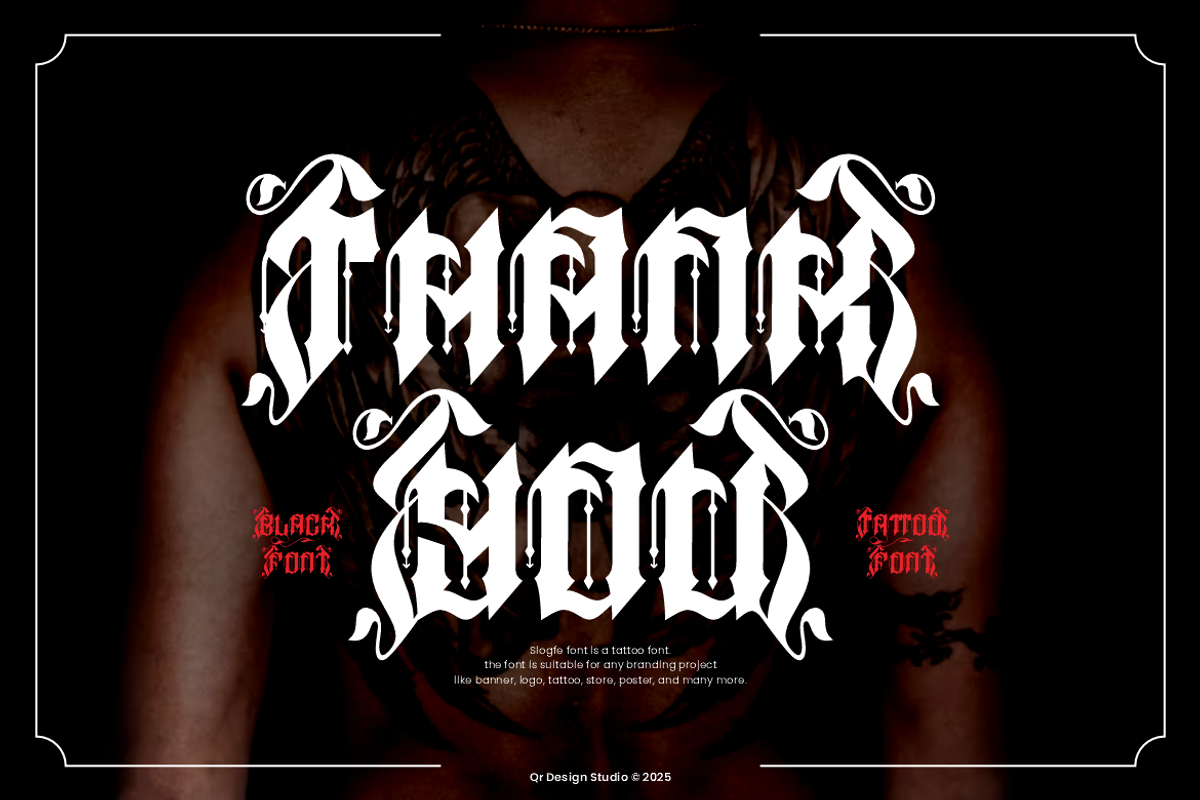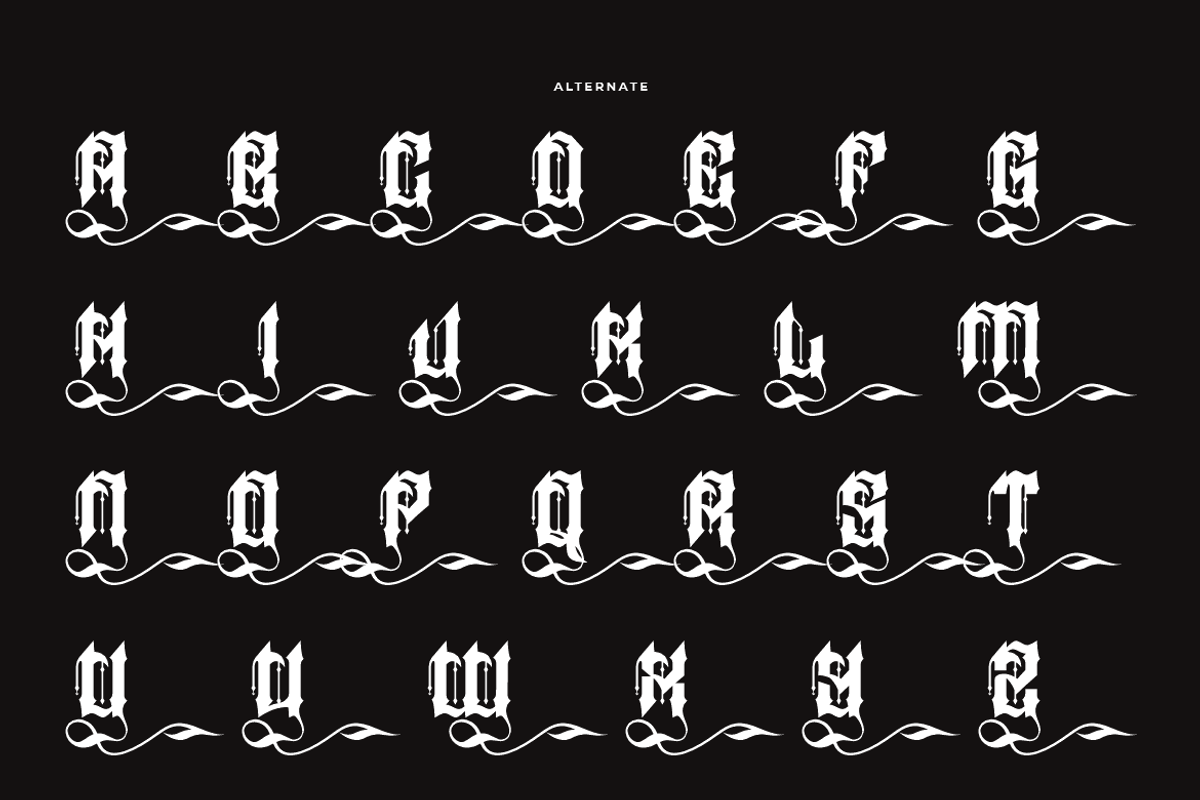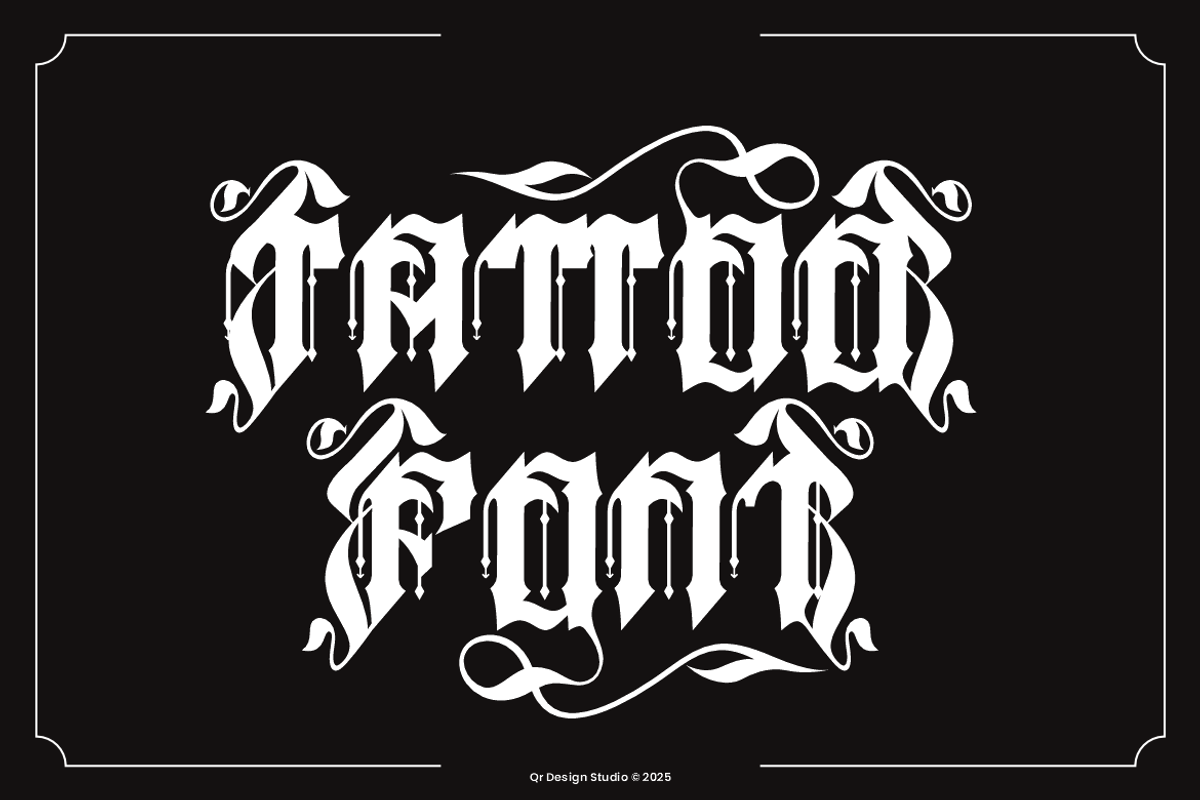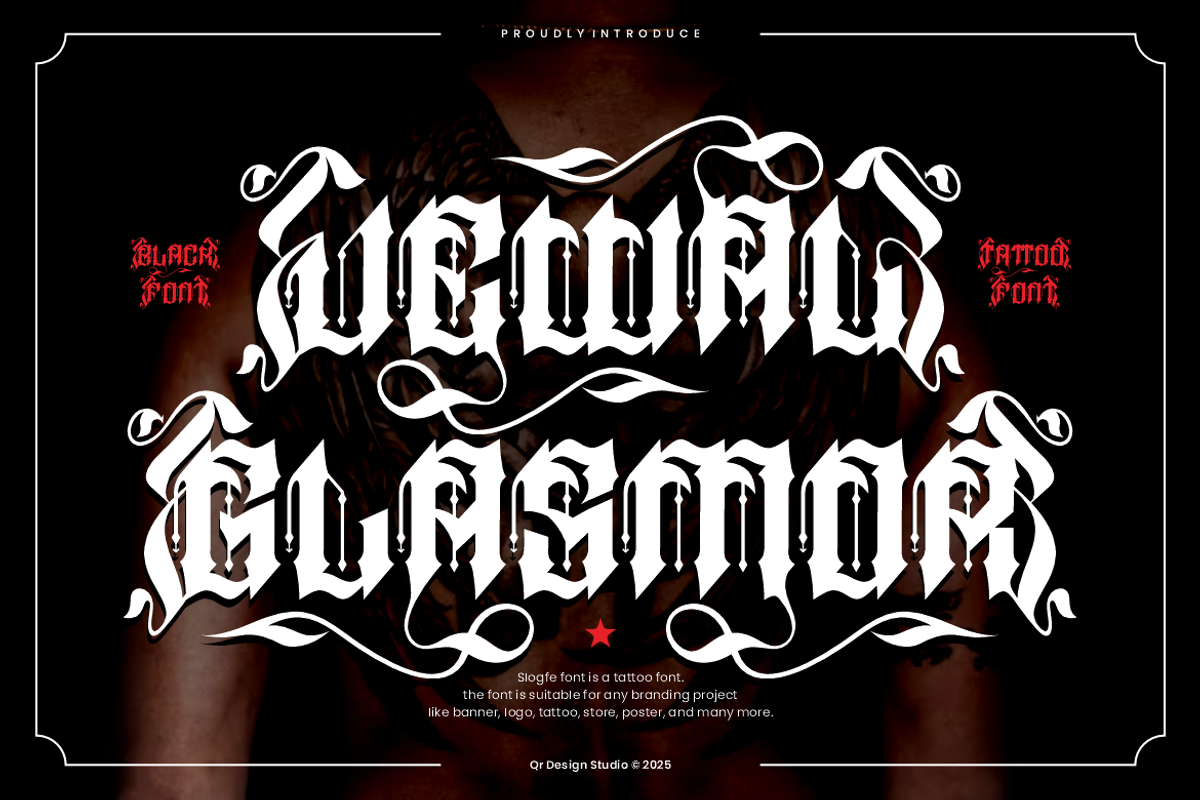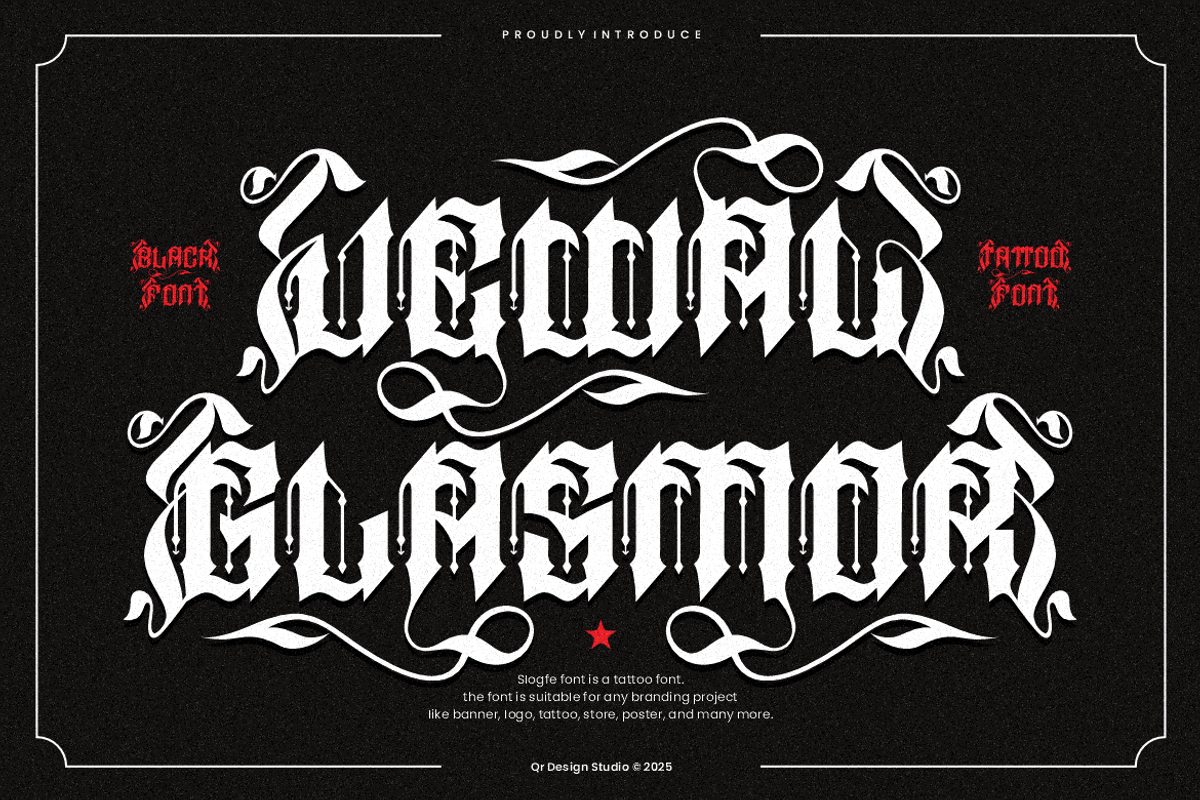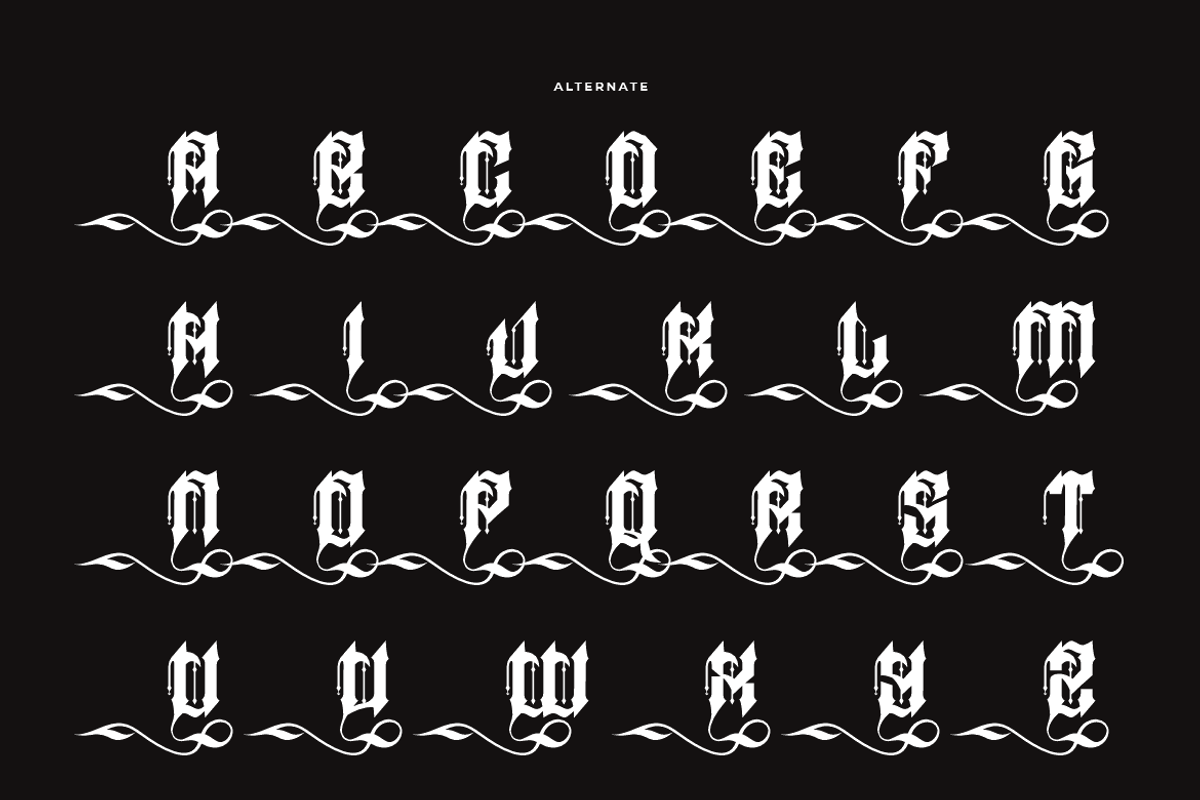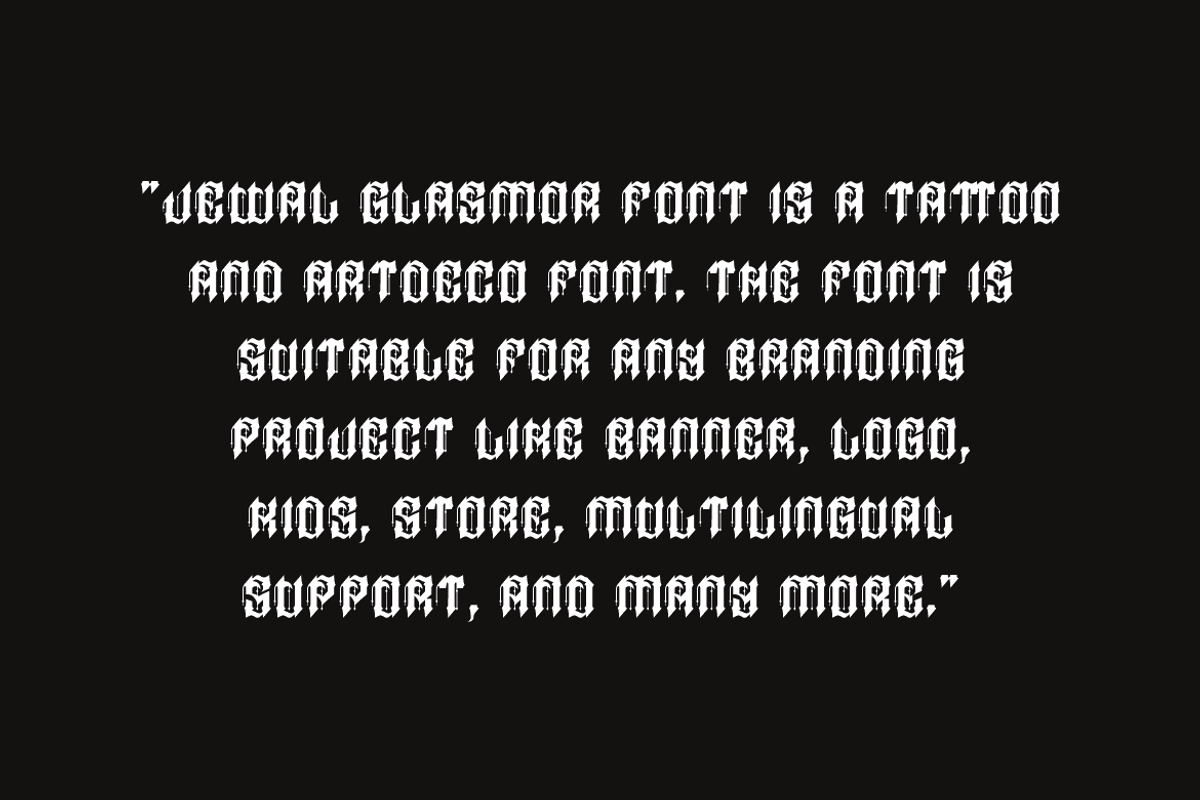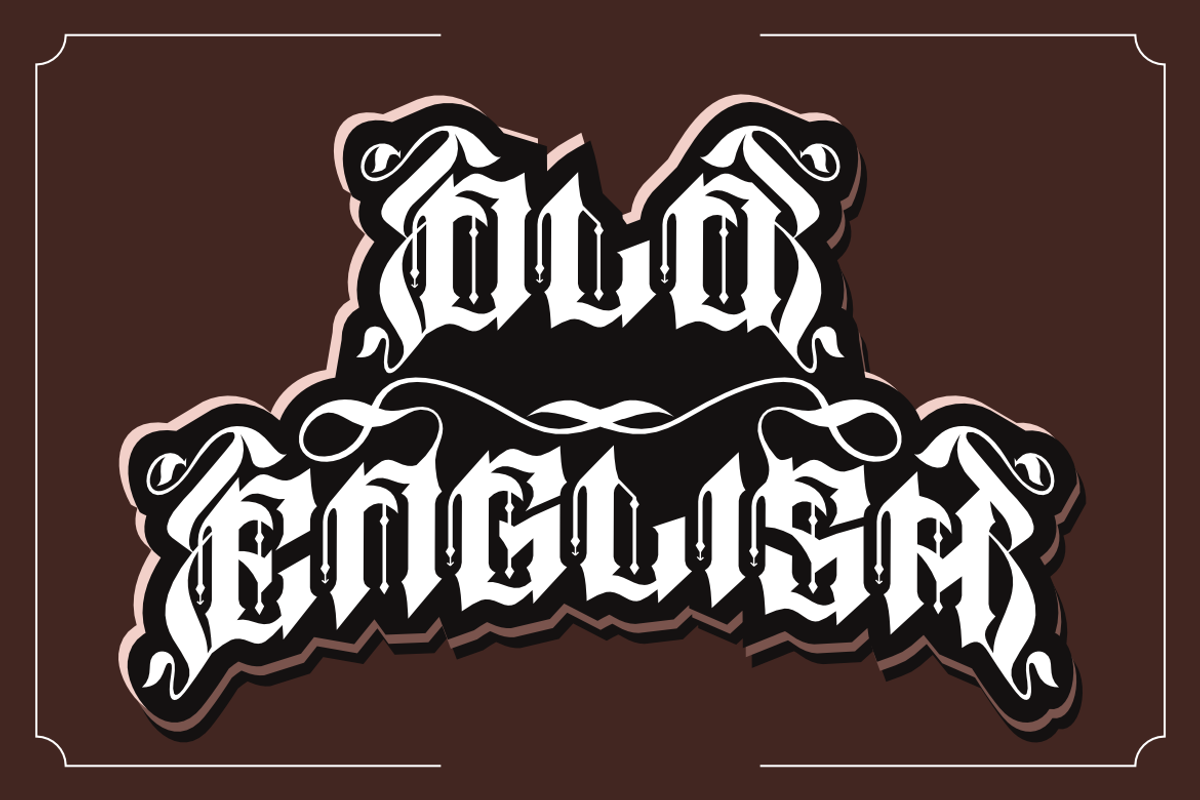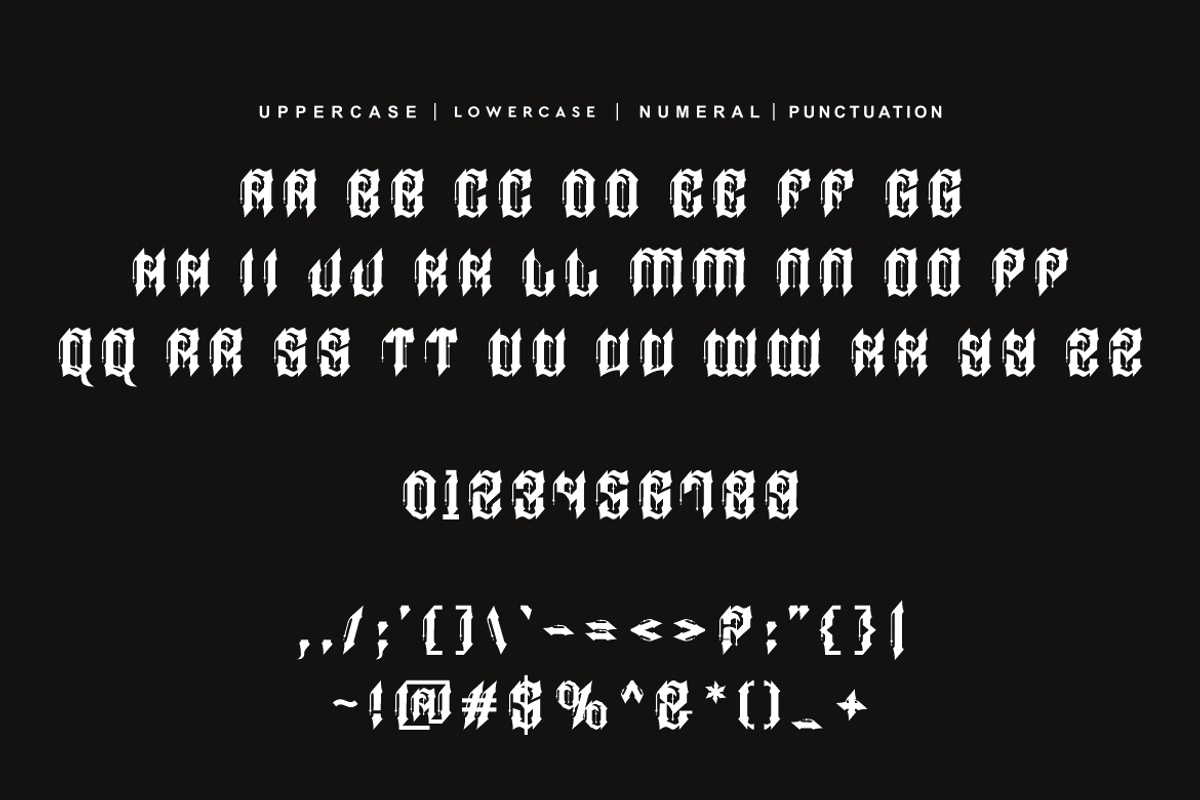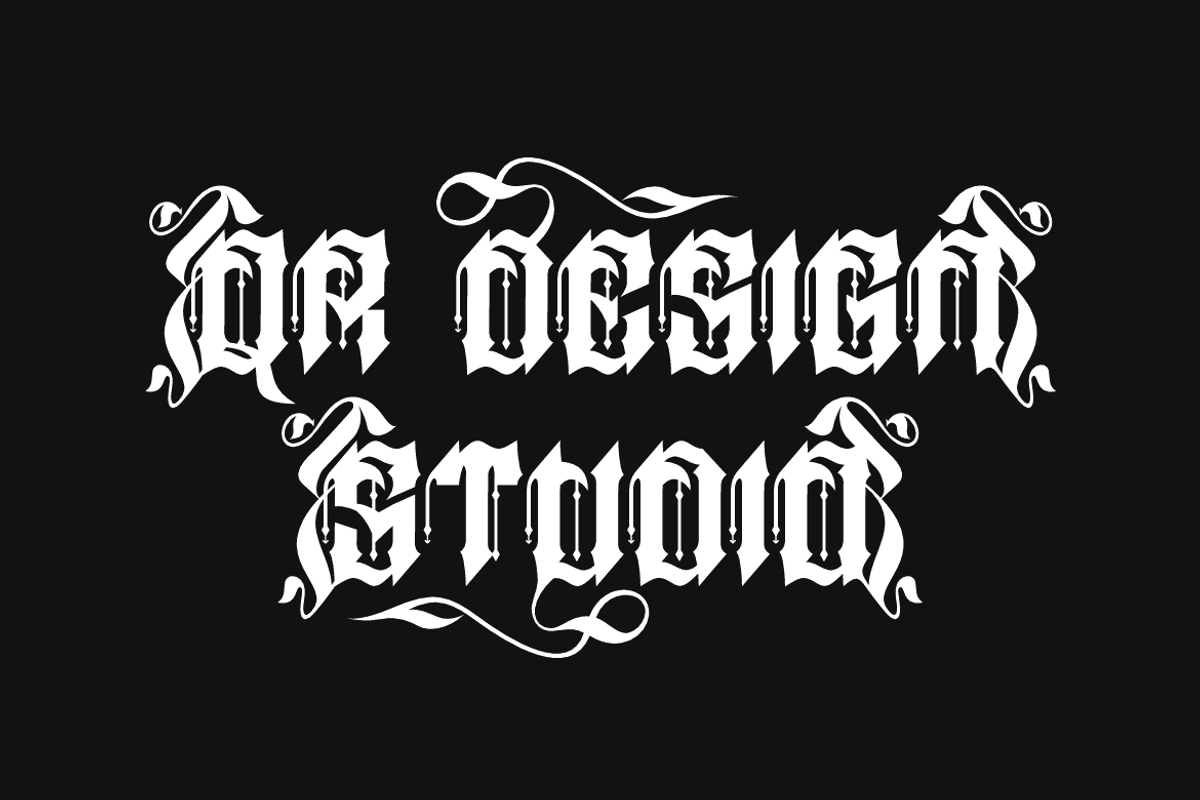
Jewal Glasmor - Tattoo Font
Jewal Glasmor Font is a tattoo and authentic display font. The font is suitable for any branding project like poster, logo, tattoo, and many more. Outstanding in a wide range of contexts.